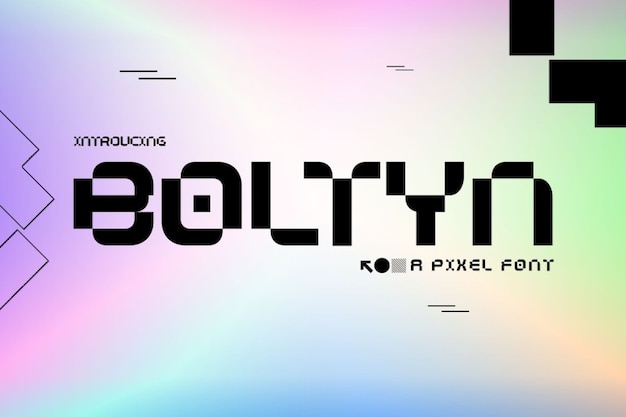
Boltyn Font
Drizy Studio
"Boltyn" font pulses with digital energy, merging pixel precision with geometric finesse. Its sharp angles and clean lines reflect a tech-savvy aesthetic, perfect for futuristic designs and digital interfaces. With a nod to modernity, "Boltyn" delivers a dynamic typographic experience, ideal for tech-themed projects and sleek digital presentations.